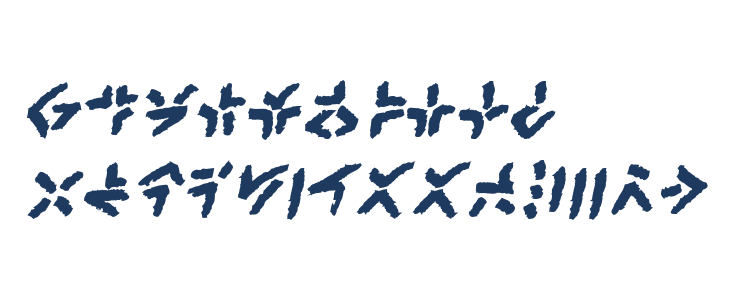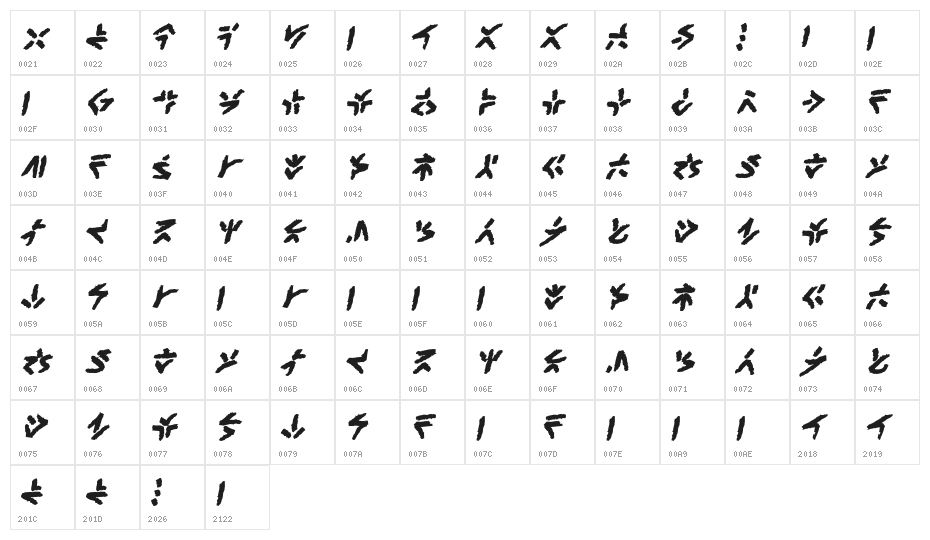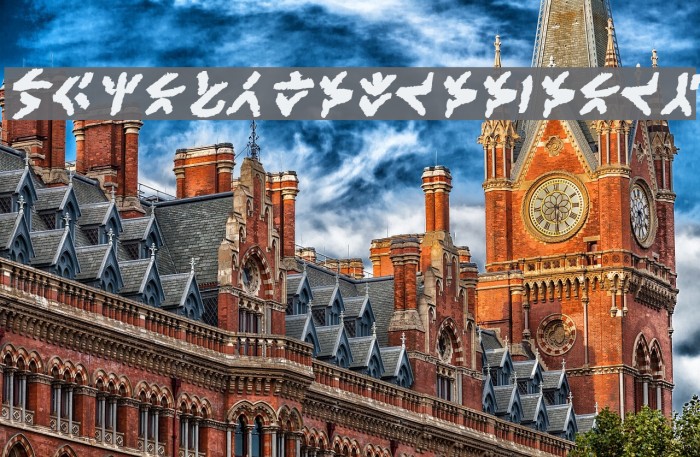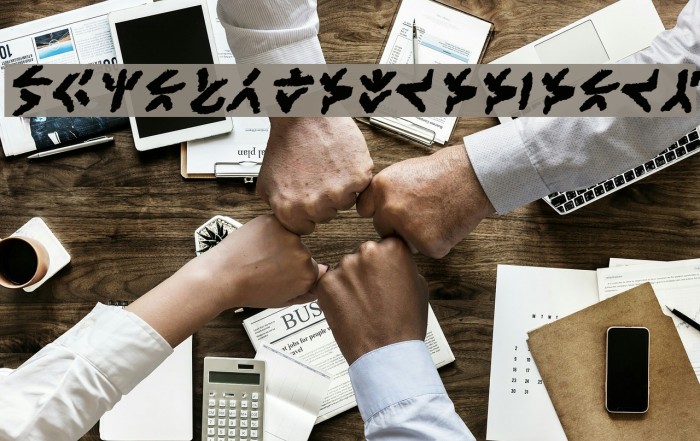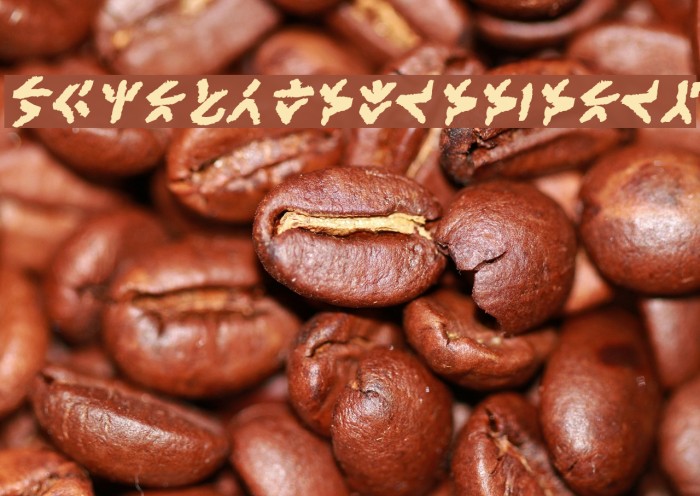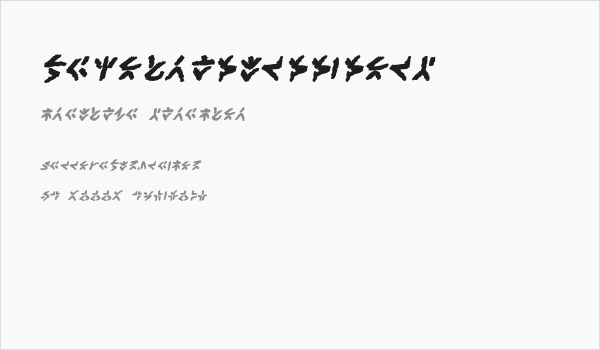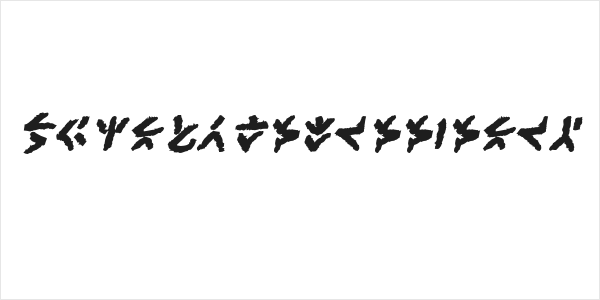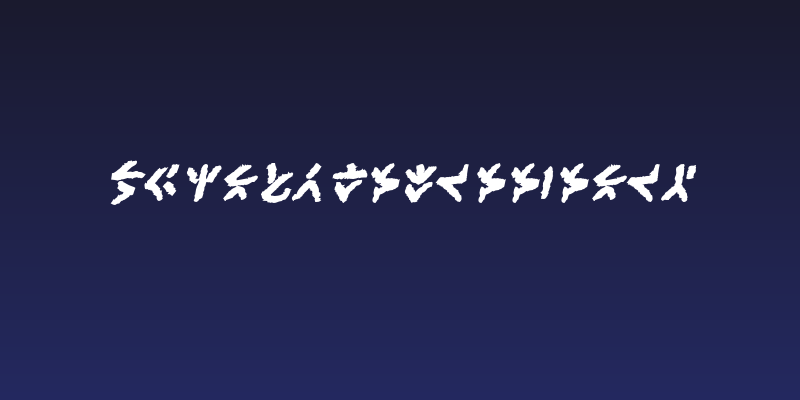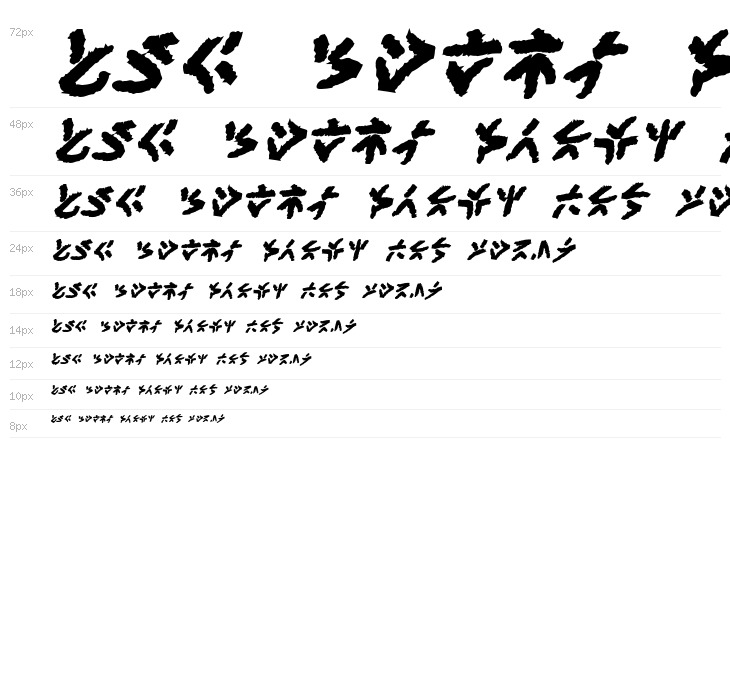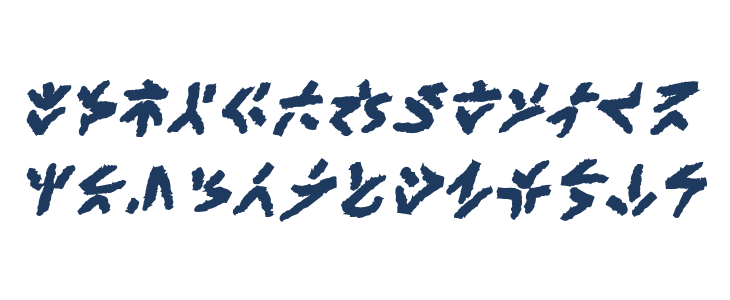
XenoTribalBB-Bold Font
XenoTribalBB-Bold Description
This font features a bold, tribal-inspired design with sharp, angular strokes and a distinctive, edgy appearance. The characters are heavily stylized, with a rough, hand-drawn quality that gives them a unique and dynamic look. The boldness of the strokes creates a strong visual impact, making it suitable for attention-grabbing designs. Each letter is crafted with a sense of movement and energy, reflecting a modern, artistic flair. The font's unique style makes it ideal for projects that require a bold and unconventional aesthetic.
| Proposed Projects | Ideal for tattoo designs, album covers, posters, and branding projects that require a bold and edgy look. |